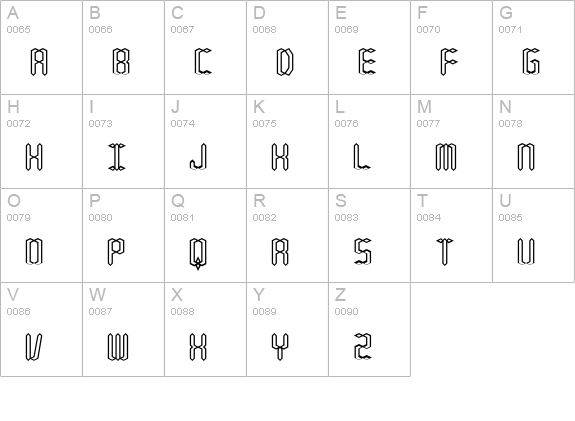
Compliant Confuse 1o BRK font is a unique and eye-catching display font that combines modern style with a touch of confusion. With its bold and quirky design, this font is perfect for making a statement in your designs. Whether you're creating posters, logos, or social media graphics, Compliant Confuse 1o BRK font is sure to grab attention. Best of all, this font is available for free download at FontsMarket.com. So go ahead and add a playful twist to your projects with Compliant Confuse 1o BRK font today!